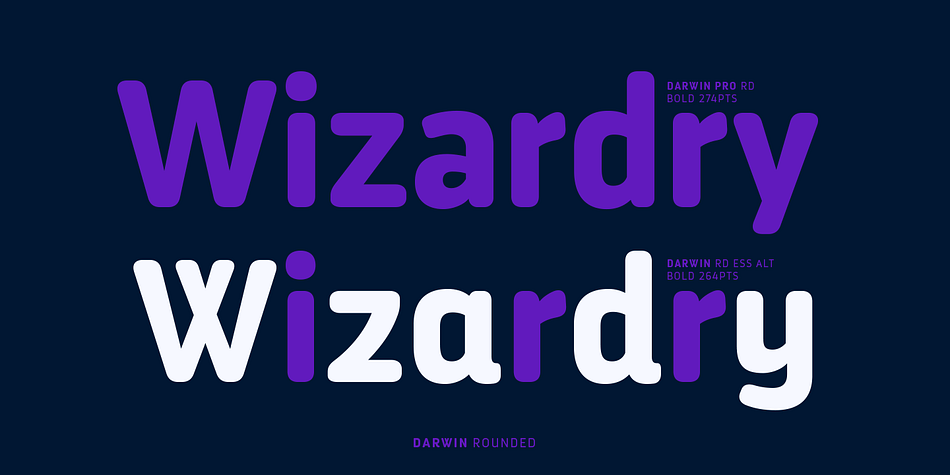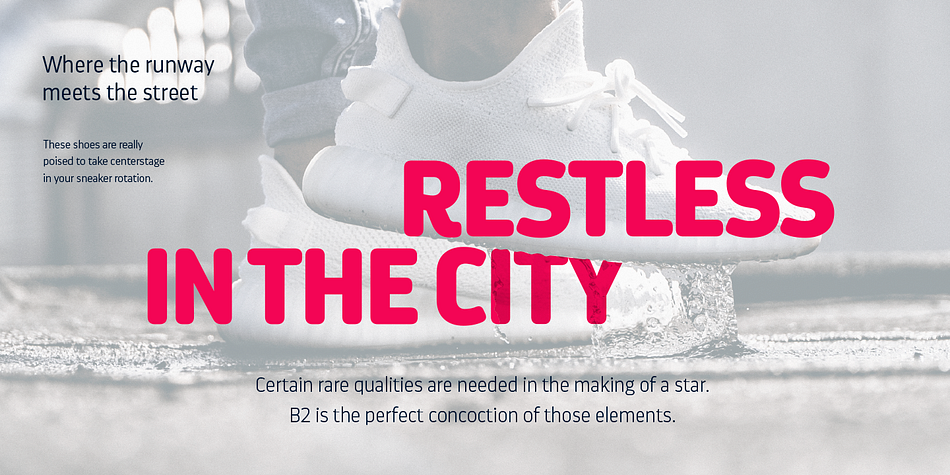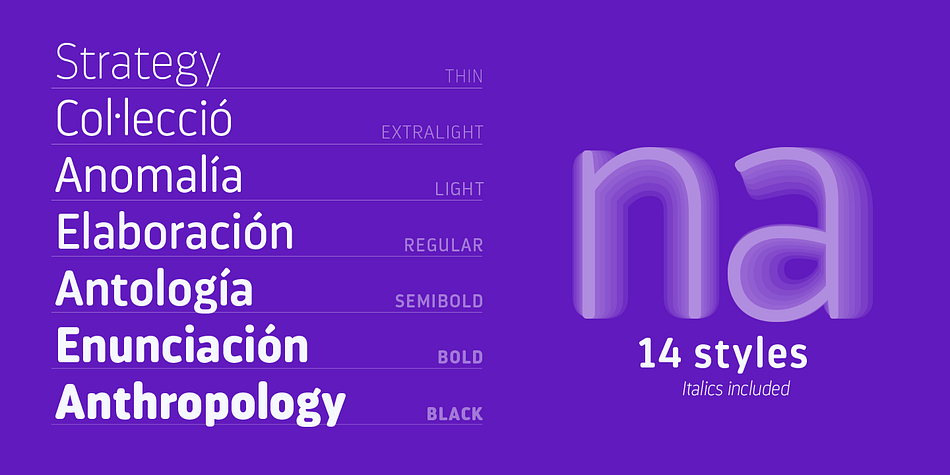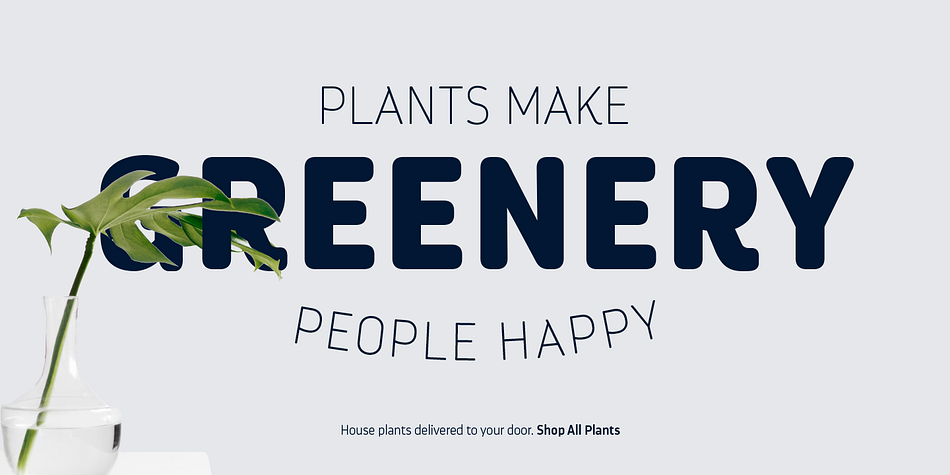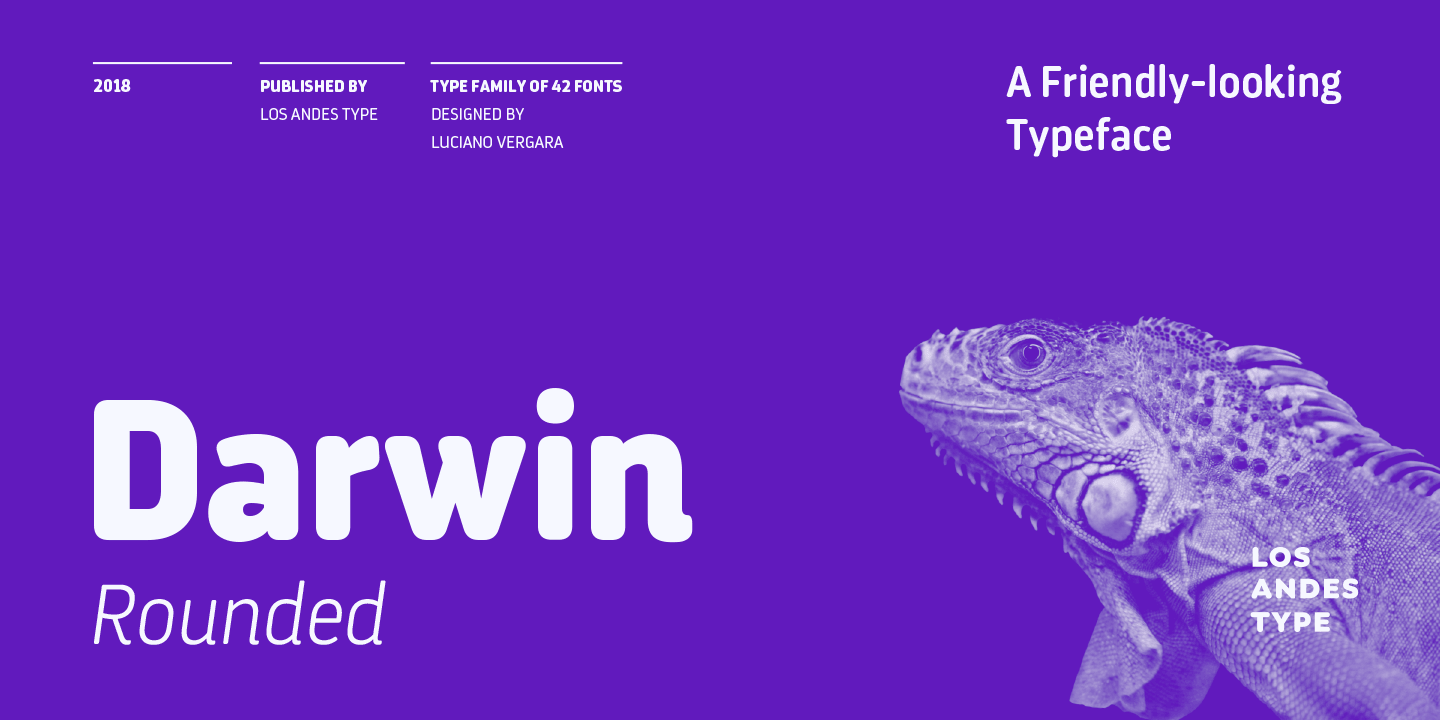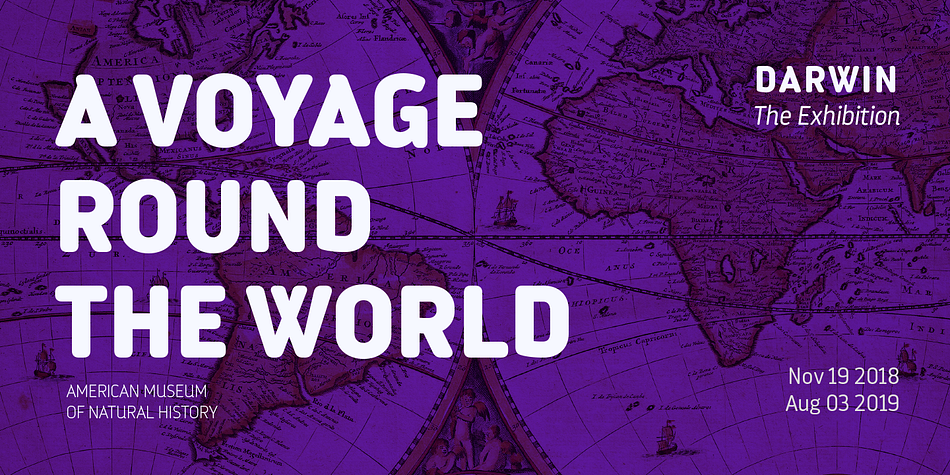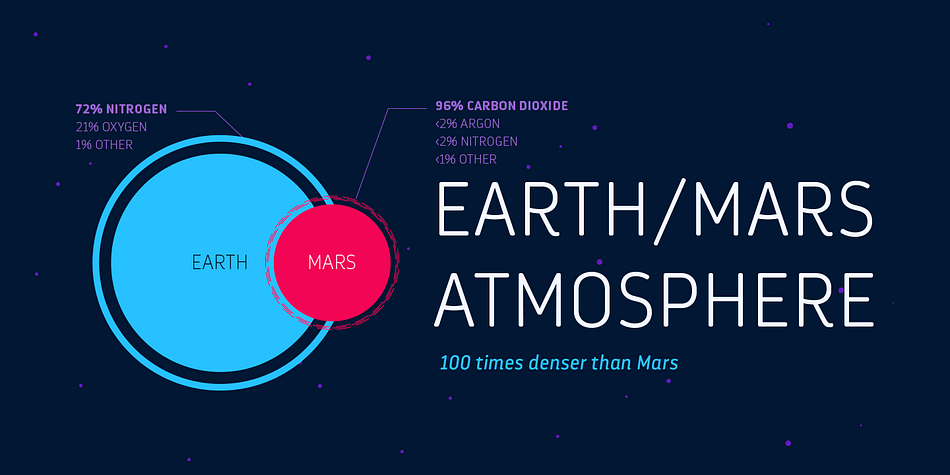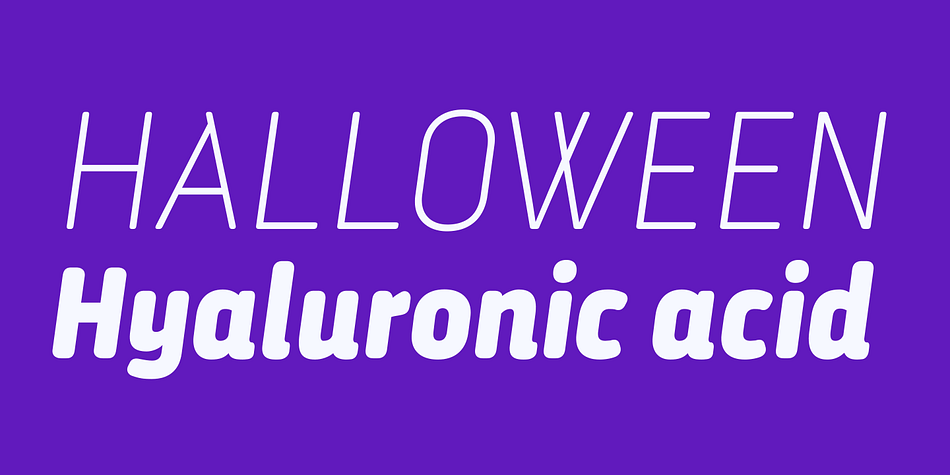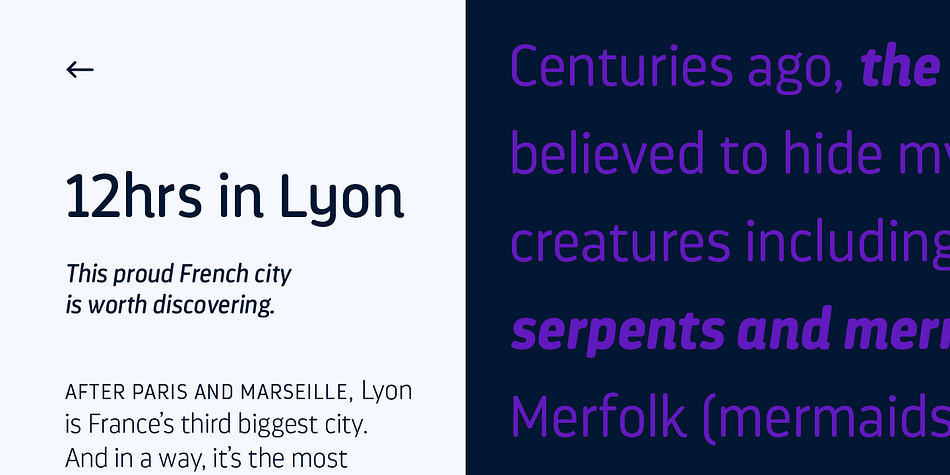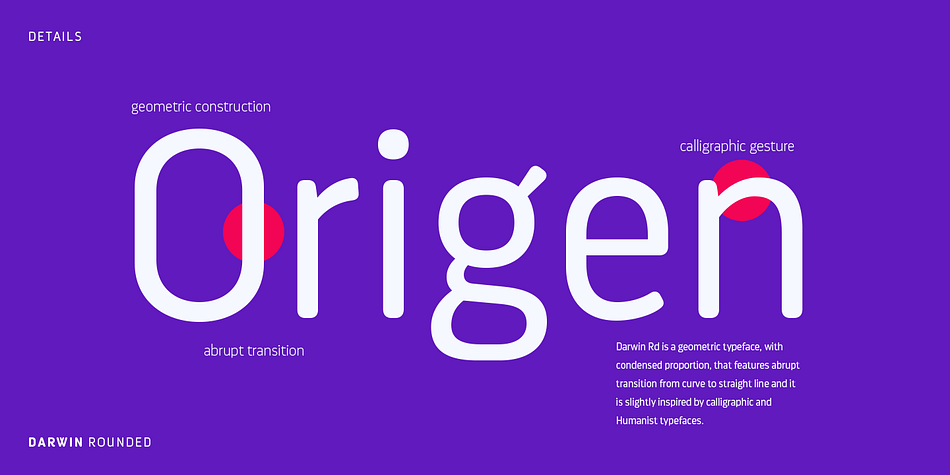
Designed by Luciano Vergara, Darwin Rounded is a sans serif font family. This typeface has forty-two styles and was published by Los Andes Type.
Darwin Rounded, the resequel to Darwin, is ready for sea and new adventures! A new fresh design with an updated language support and different sets of figures.
Darwin Rounded comprises 3 subfamilies: Darwin Rounded Pro, Darwin Rounded Essential and Darwin Rounded Alt Essential. The font includes alternative characters available as an OpenType feature as well as Oldstyle figures, numerators and denominators.